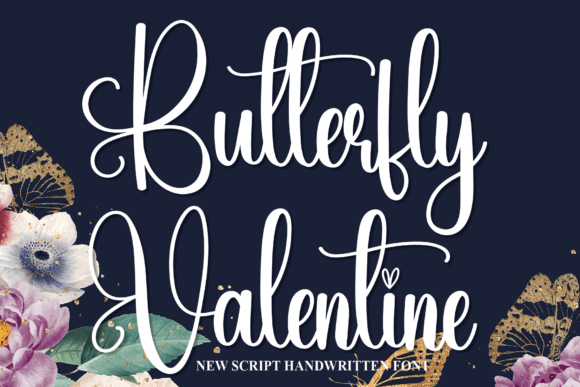
In the realm of digital artistry, there's a font that dances with ethereal grace, capturing the essence of romance and elegance - Butterfly Valentine. This exquisite script font, crafted by the ingenious hands of andikastudio, embodies the spirit of timeless beauty.
Picture a world where words take flight, painted in the delicate strokes of Butterfly Valentine. Its flowing curves and graceful strokes evoke a sense of enchantment, transporting you to a realm of heartfelt emotions and profound connections. Whether it's a wedding invitation, a cherished thank you note, or a heartfelt quote, Butterfly Valentine weaves a tapestry of visual delight.
With each character etched with meticulous care, Butterfly Valentine invites you to indulge in the art of self-expression. Its versatility knows no bounds, effortlessly complementing diverse design projects. From logos and business cards that exude professionalism to greeting cards that radiate warmth and cheer, Butterfly Valentine elevates your creations to new heights of sophistication.
But Butterfly Valentine's allure extends beyond its aesthetic charm. It's a font that speaks to your soul, evoking a symphony of emotions. Imagine your designs adorned with Butterfly Valentine's enchanting script, each letter a whisper of love, joy, and heartfelt connection. Your audience will be captivated, immersed in a world where words dance with elegance and grace.